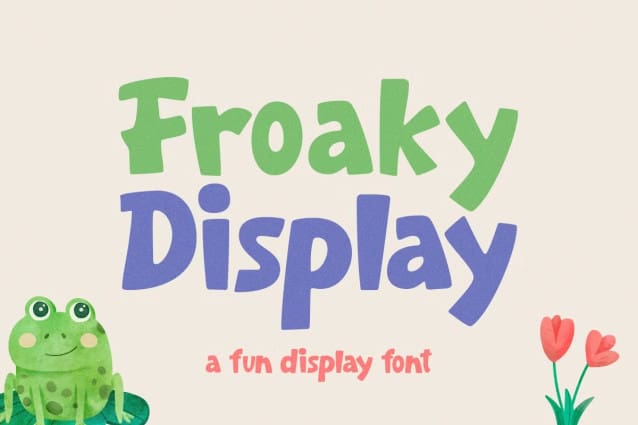
Froaky Clean Font
Froaky Clean font, jump into your designs with its playful bounce and quirky charm! This fun font adds a touch of whimsy to any project—perfect for children’s illustrations, quirky packaging, or social media posts. Let Froaky inject some personality into your creations!